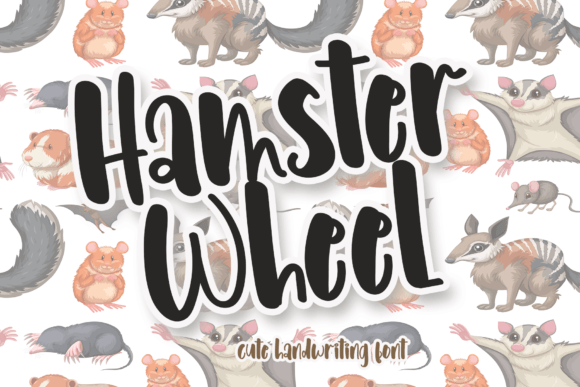
Step into a world of exquisite typography with Hamster Wheel Font, a captivating handwritten typeface exuding an air of sophistication and boundless creativity. This script font is a true masterpiece, lovingly crafted by the skilled hands of Creatype Designer to elevate your designs to captivating heights.
Hamster Wheel Font is not just a font; it's an invitation to unleash your imagination and forge unforgettable visual experiences. Its elegant curves and timeless style evoke a sense of luxury and indulgence, making it the perfect choice for discerning designers seeking to create truly extraordinary works of art.
Picture this: your designs adorned with the graceful strokes of Hamster Wheel Font, each letter flowing seamlessly into the next, creating a visual symphony that captivates the eye. This font is a master of versatility, effortlessly adapting to a myriad of design styles and concepts.
Envision your brand adorned with the sophisticated charm of Hamster Wheel Font, its intricate details adding a touch of elegance to every marketing material. Craft eye-catching social media graphics, design unforgettable logos, and create website experiences that leave a lasting impression.
Immerse yourself in the world of Hamster Wheel Font and discover a treasure trove of creative possibilities. Its timeless appeal ensures that your designs will stand the test of time, captivating audiences with their enduring beauty.
Join the ranks of discerning designers who have embraced the allure of Hamster Wheel Font, transforming their creations into captivating works of art. Let this extraordinary typeface be your muse, inspiring you to reach new heights of creativity and leave an indelible mark on the world of design.